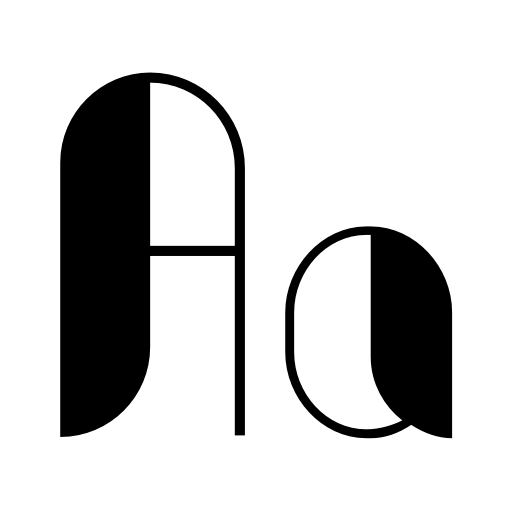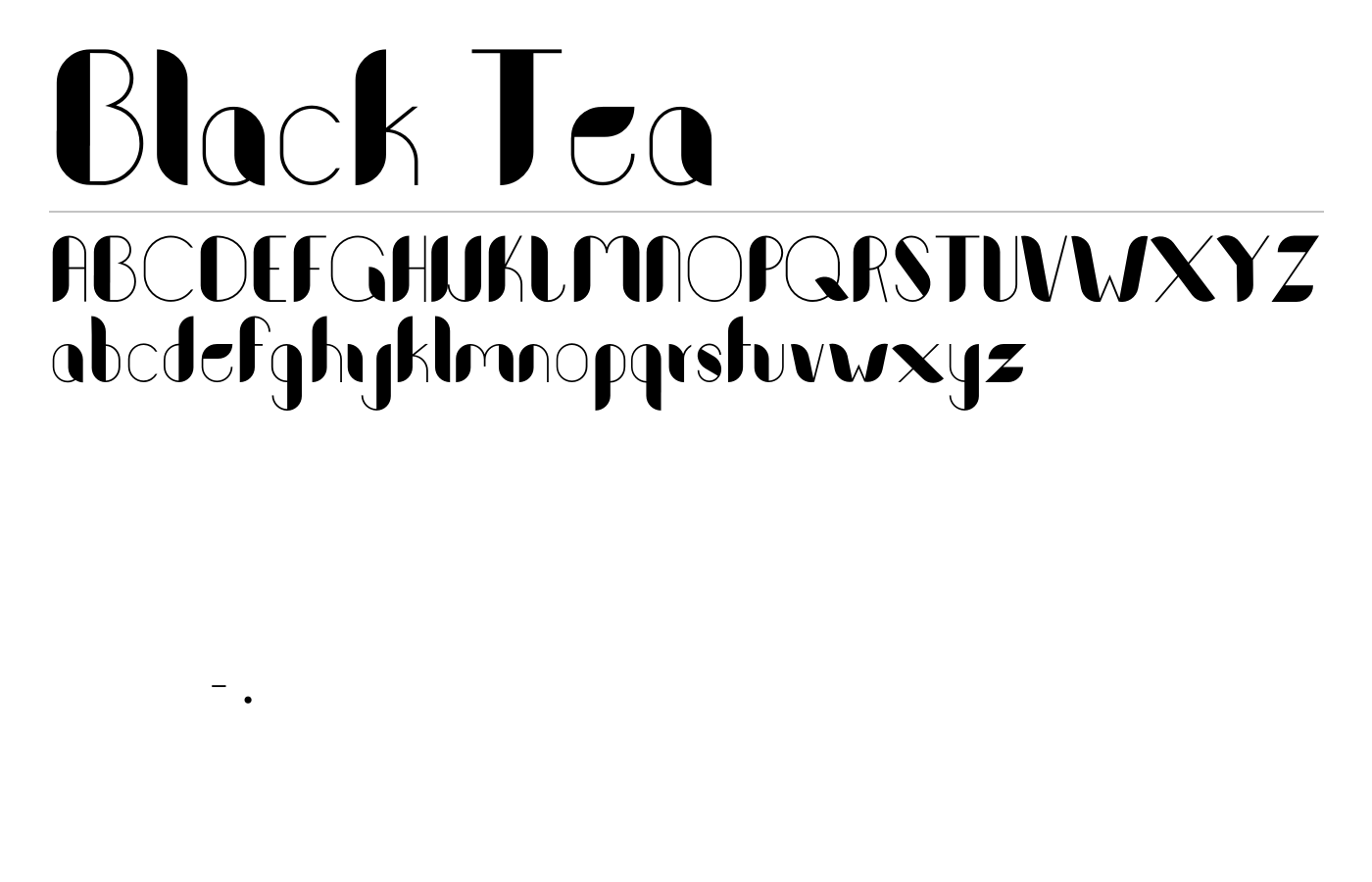
Black Tea is a stylish and modern font with a unique blend of geometric shapes and high contrast stroke weights, giving it an elegant yet playful personality. Its condensed letterforms and mix of thick and thin strokes make it ideal for eye-catching headlines, logos, and creative branding where a refined but distinctive look is desired. This font works best in editorial designs, packaging, and fashion branding that aim to stand out with a contemporary and artistic flair.
Black Tea Font
About Black Tea Font
| Font family | Black Tea Font |
| Designer | Sophie Spatschke |